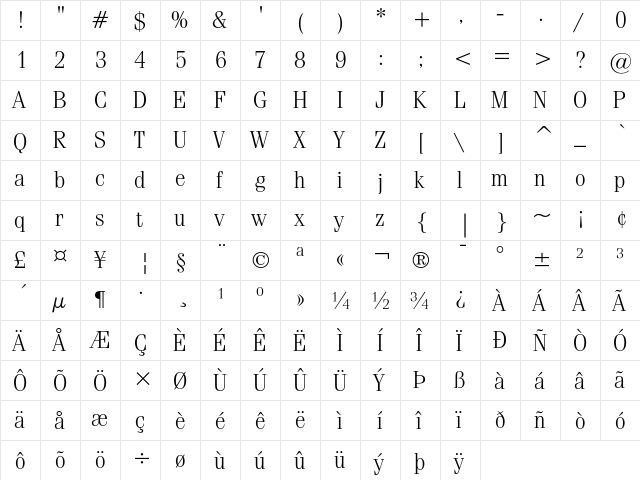
ITC Fenice Light
Design Context for ITC Fenice Typeface
ITC Fenice takes a measured approach to typography — its balanced proportions and neutral character make it a reliable workhorse for both digital and print work. Its slender proportions lend an understated elegance to any composition.
Pro Tip: Use ITC Fenice in both headline and body roles to test its range before committing to a single application.